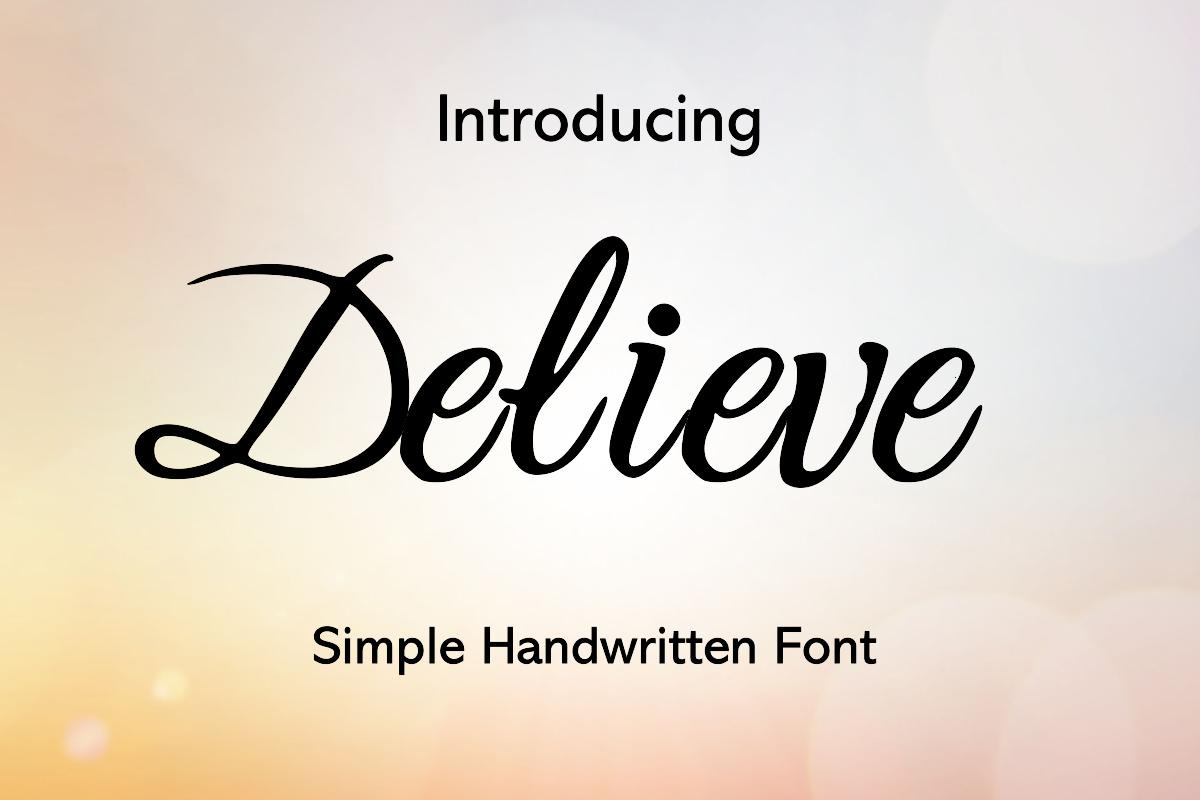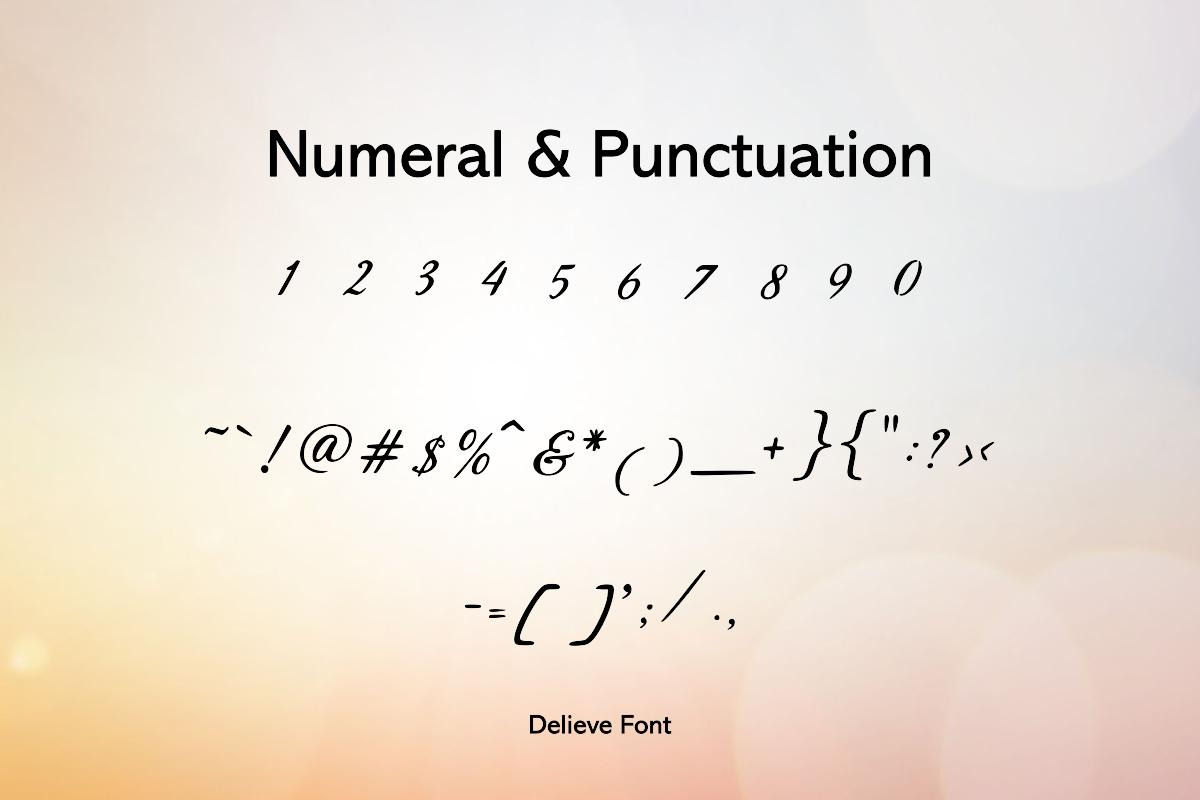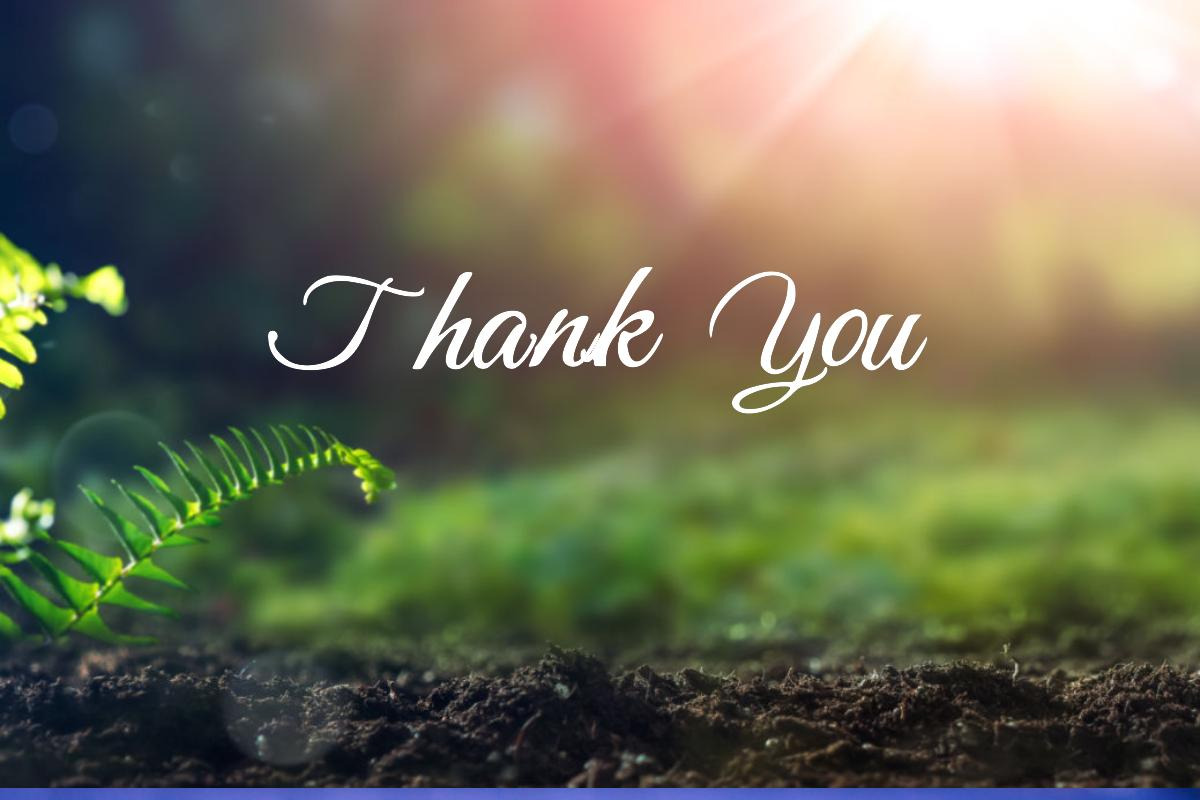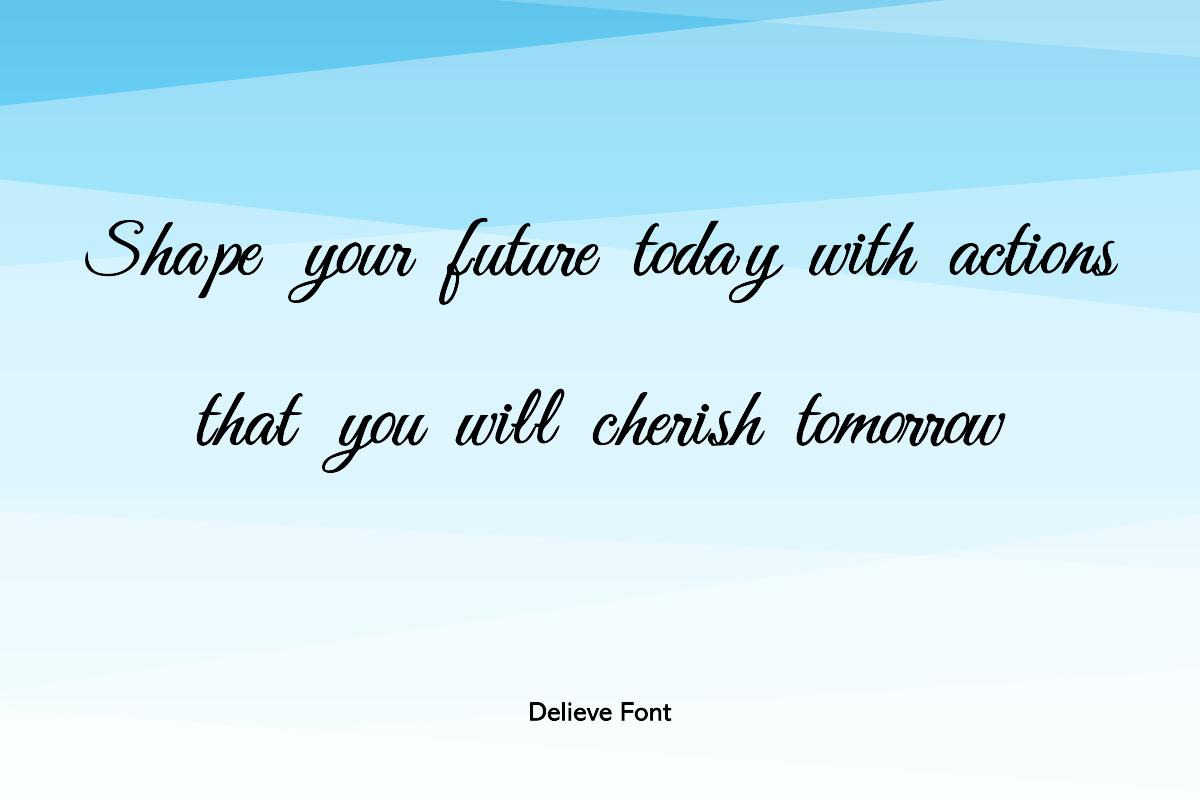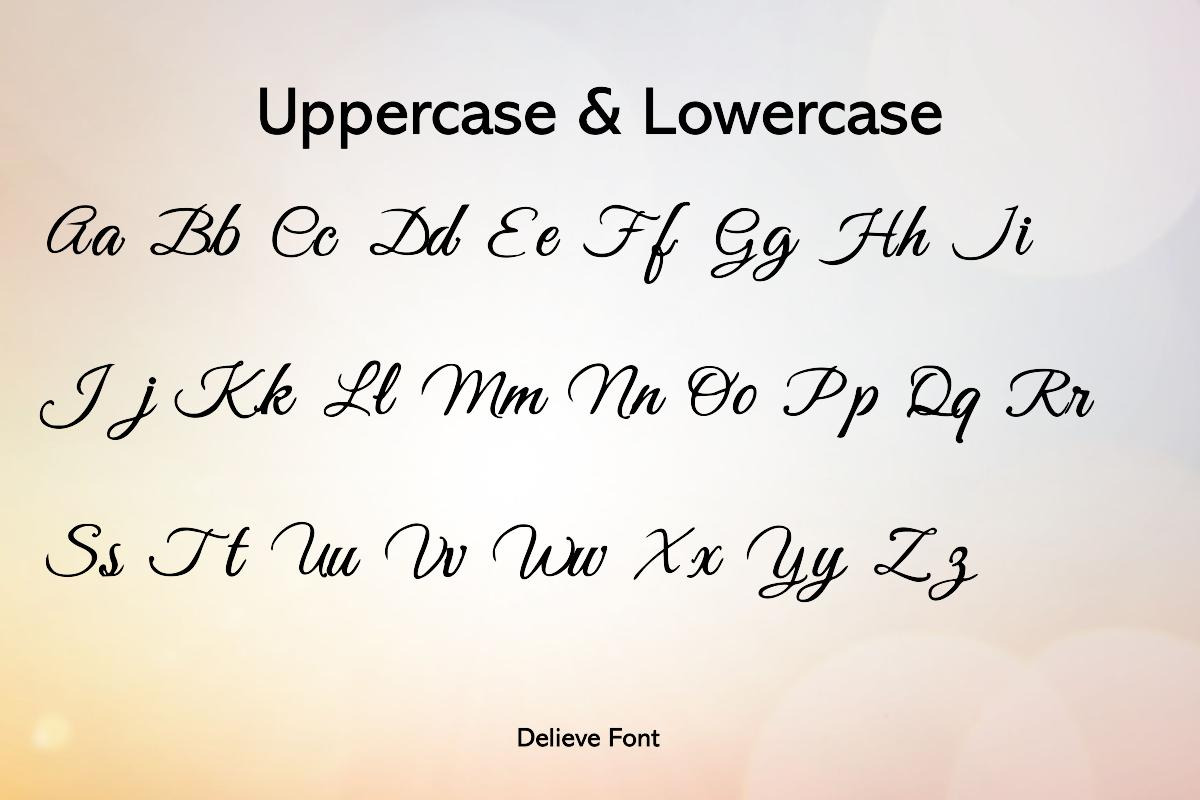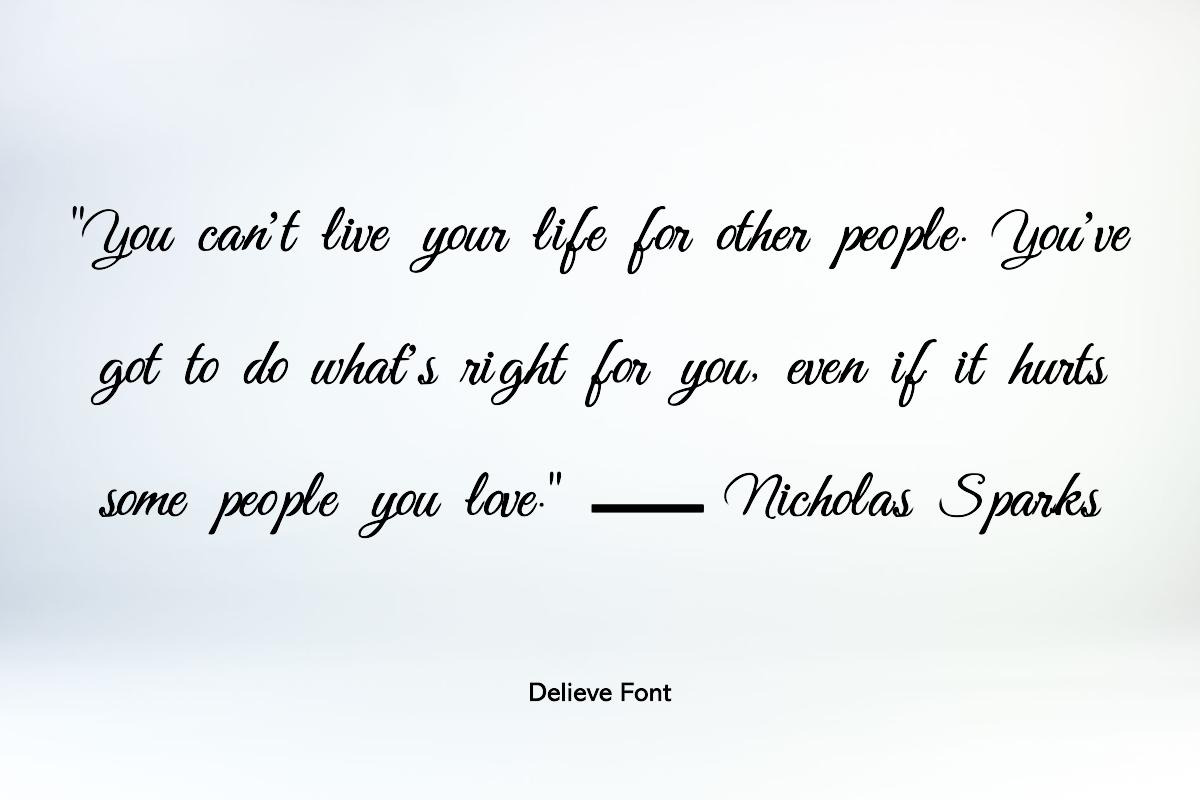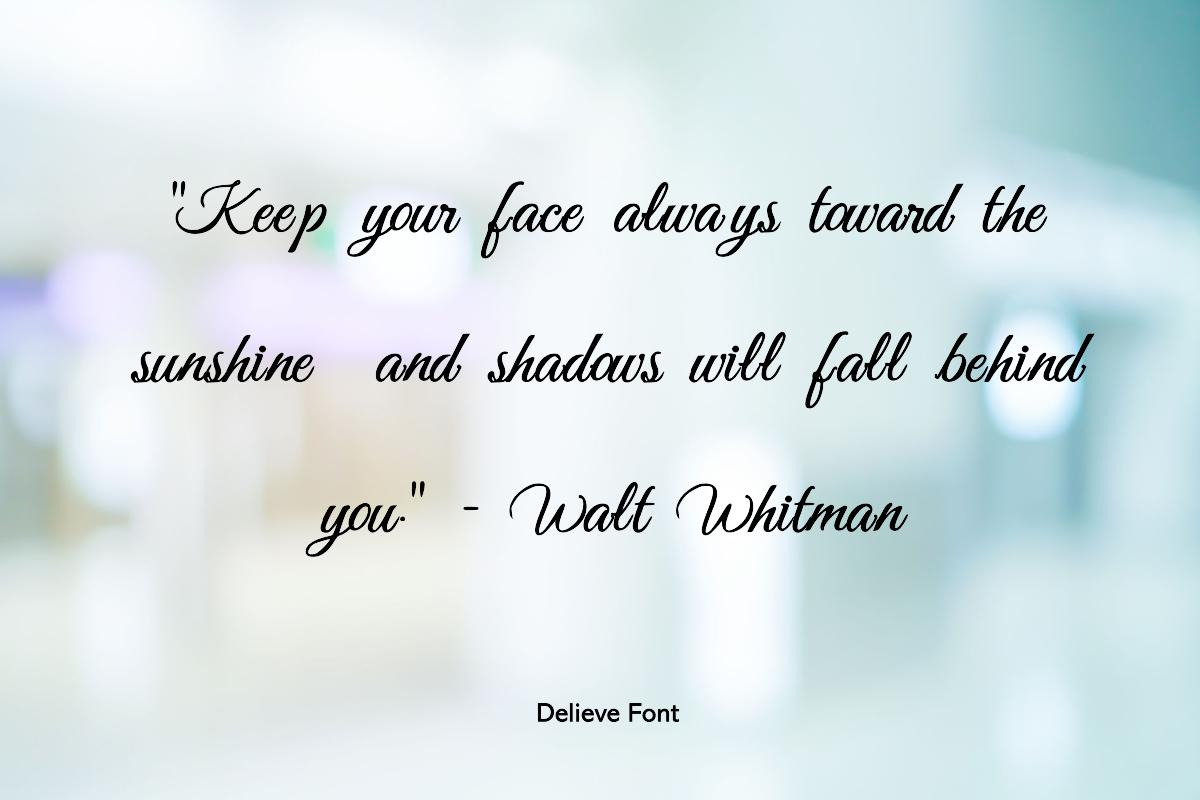
Delieve Handwritten Font
'Delieve' – The Quintessence of Modern Handwriting
Introducing 'Delieve', a modern handwritten font that captures the spontaneity and elegance of contemporary script. With its clean lines and organic flow, Delieve is designed to bring a fresh, stylish touch to any digital canvas.
- Trendsetting Branding: Craft a brand identity that's both modern and inviting with Delieve's sleek script.
- Fashionable Social Media Posts: Captivate your audience with posts that feature a font as chic and current as your ideas.
- Exclusive Invitations: Send out invites that exude modern elegance and a personal touch.
- Innovative Design Projects: From app interfaces to editorial layouts, Delieve adds a signature flair that's unmistakably current.
Delieve is more than a font; it's a statement of style, a testament to the beauty of modern handwriting in the digital age.